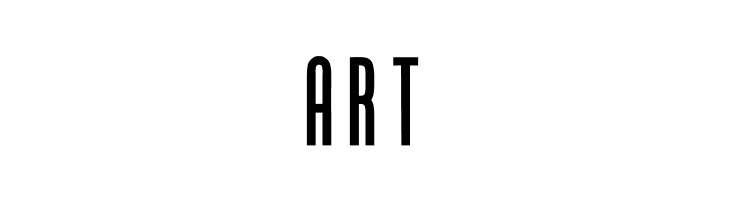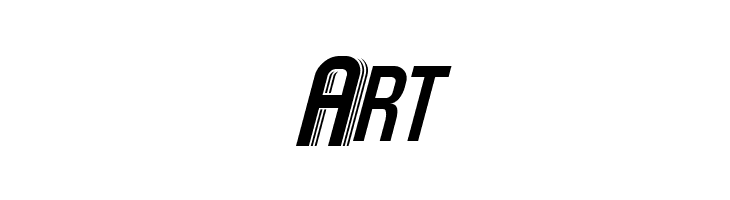
A modern, geometric font with rounded edges and a slight slant.
A bold, geometric font with a punk rock aesthetic and condensed, thin structure.
A minimalist, geometric font with thin, precise lines and a modern aesthetic.
A modern, geometric font with rounded edges and consistent stroke width.
A bold, slanted, and condensed font with high contrast and dynamic style.
A bold, angular font with a dynamic slant and retro-futuristic style.